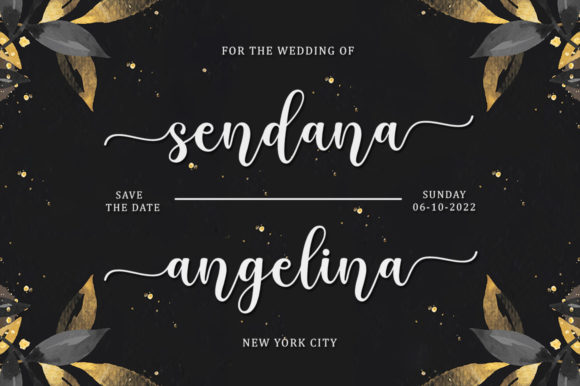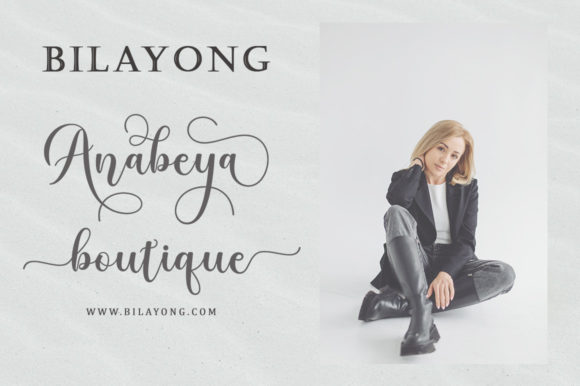
Baby Hisneya Font
db-ku.com - Script & Handwritten -- Baby Hisneya Script is a modern calligraphy font featuring basic variations, fine lines, and beautiful and elegant touch.